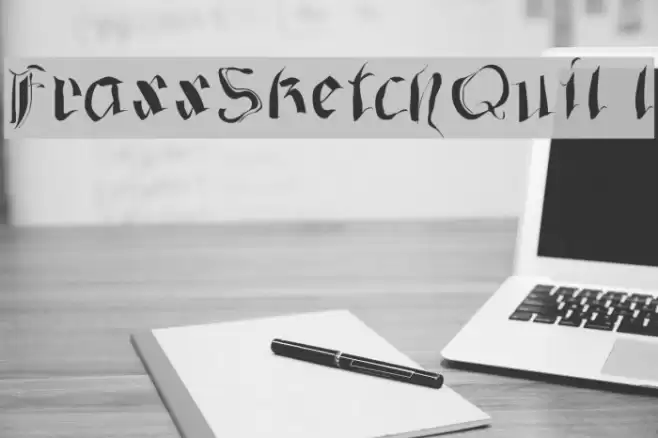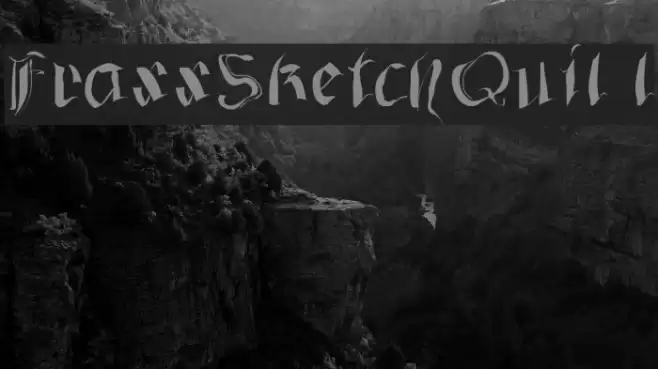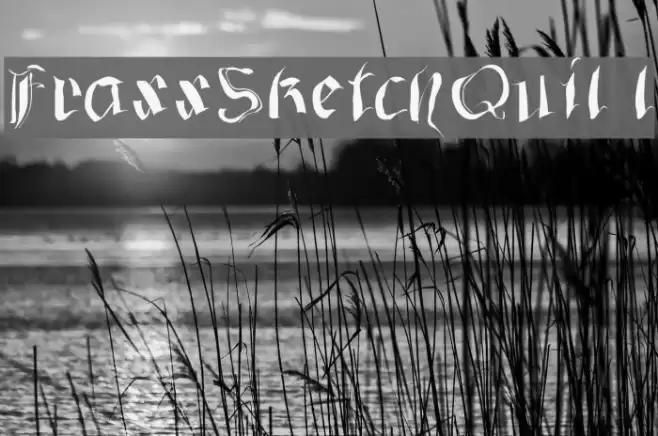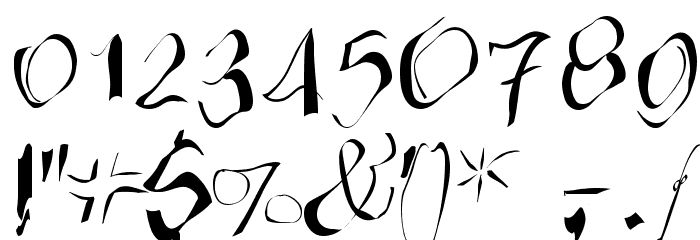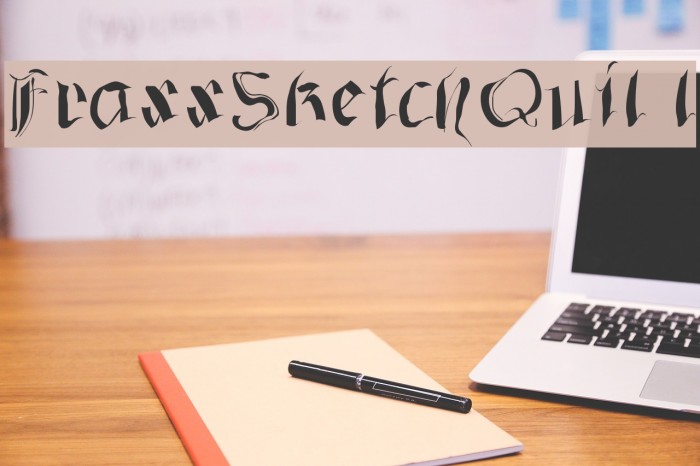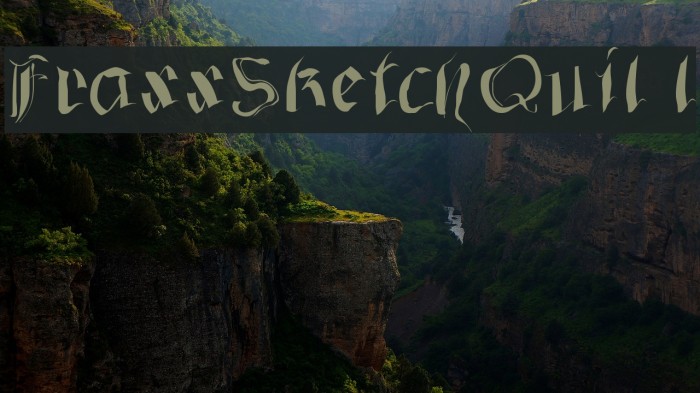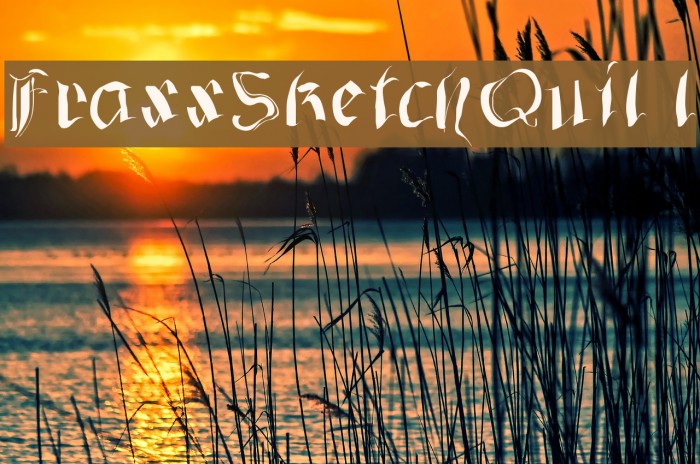
FraxxSketchQuil l Font
FraxxSketchQuil l Description
This font features a striking and intricate design reminiscent of traditional calligraphy with a modern twist. The characters are bold and dynamic, with sharp angles and flowing curves that create a sense of movement and elegance. The uppercase letters are particularly ornate, with elaborate flourishes that add a decorative touch. The lowercase letters maintain a consistent style, offering a balance between readability and artistic flair. Numbers and special characters are crafted with the same attention to detail, ensuring a cohesive look across all elements. This font is ideal for projects that require a touch of sophistication and creativity.
A bold, calligraphic font with ornate, flowing designs and sharp angles from Uncategorized fonts.
- Proposed Projects: Perfect for wedding invitations, branding, logos, and artistic posters.
- Use Case: Logos, Headlines, Artistic projects